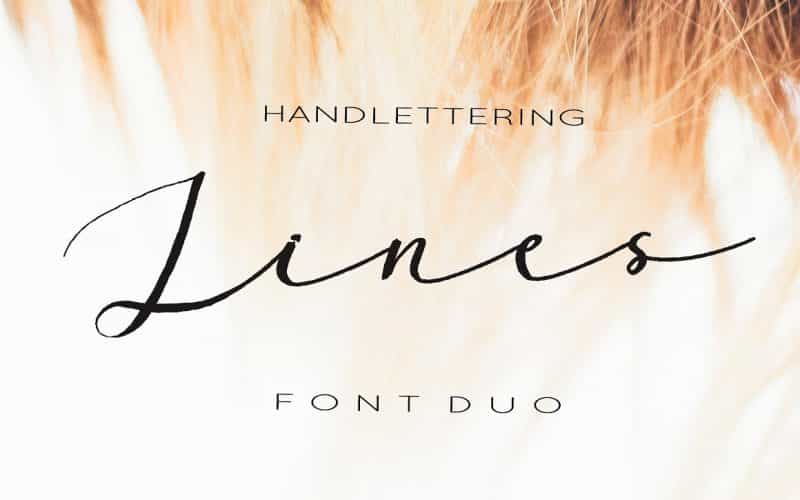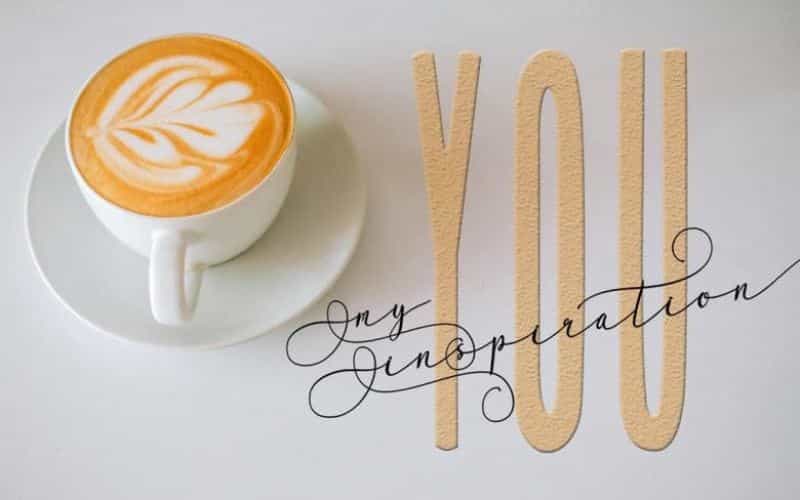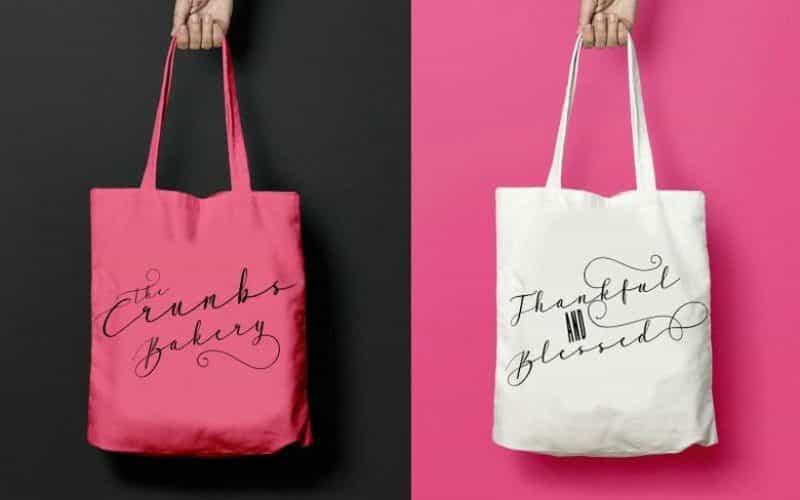
Lines Script Font Duo includes several ligatures, alternates and international support for most western languages. To enable the alternates character, you need a program that supports OpenType features such as Adobe Illustrator CS, Adobe Indesign & CorelDraw X6-X7, Microsoft Word 2010 or later versions. Ideal for, logo, wedding invitations, businness card, poster, merchandise, greeting cards, prints, blog banners, apparel, quotes and so much more!